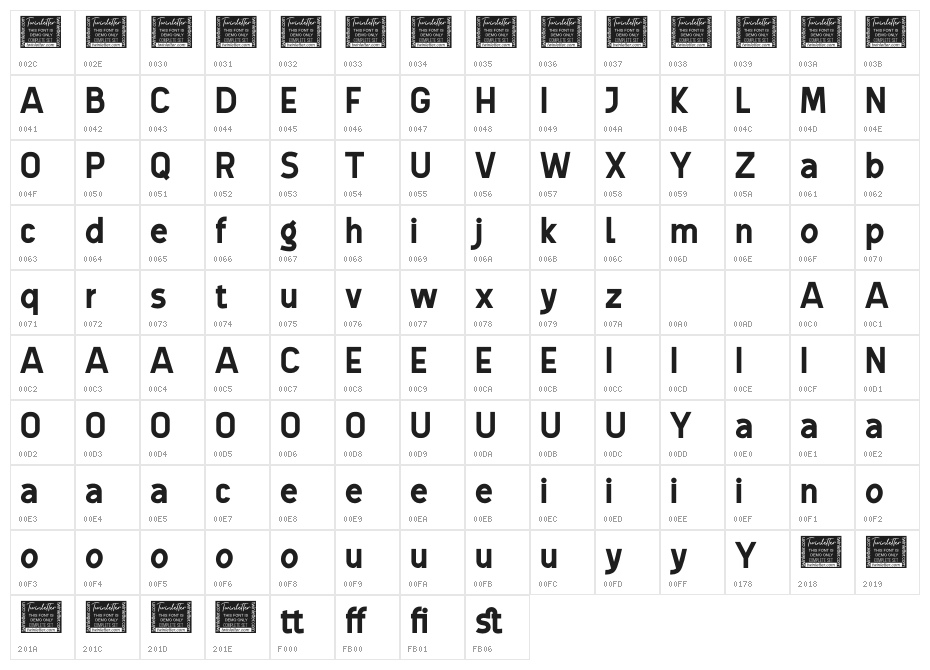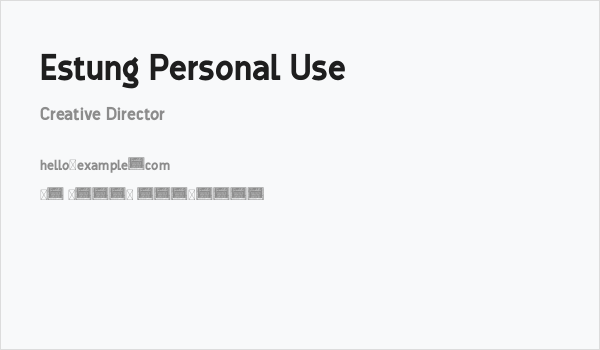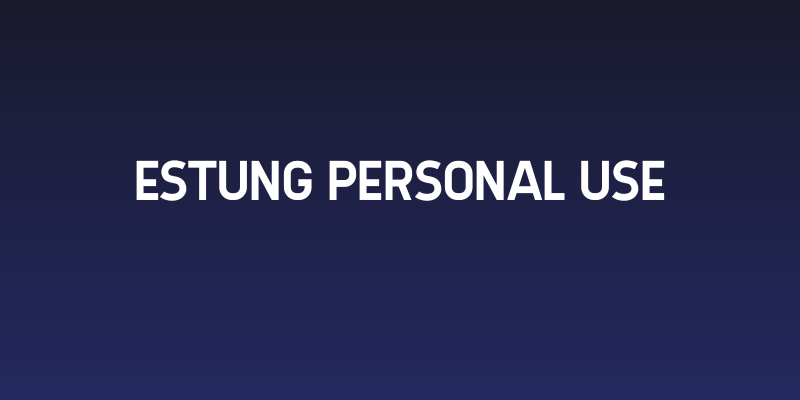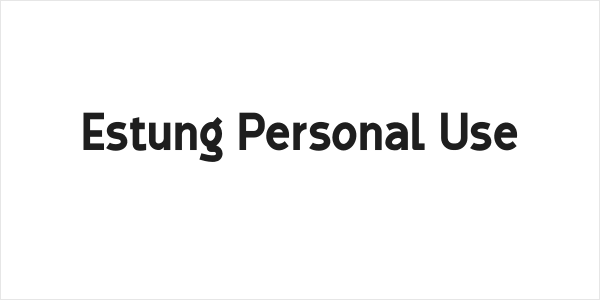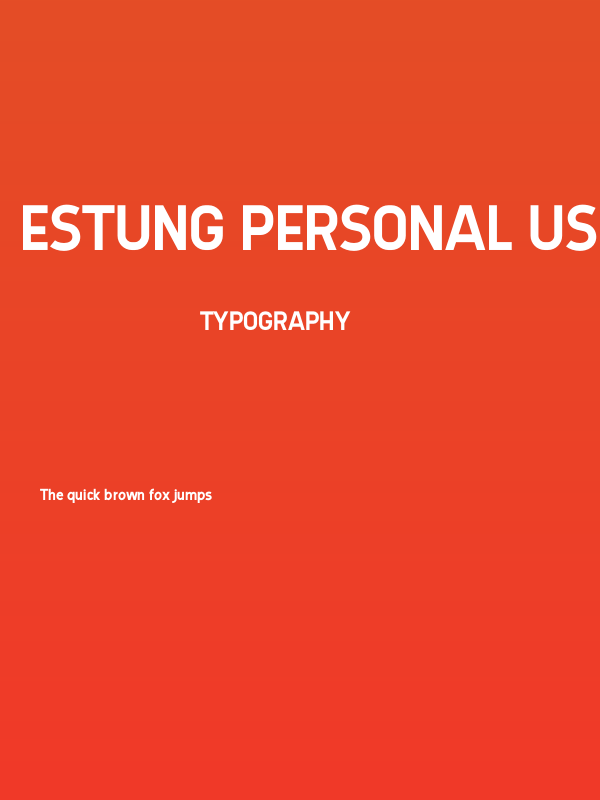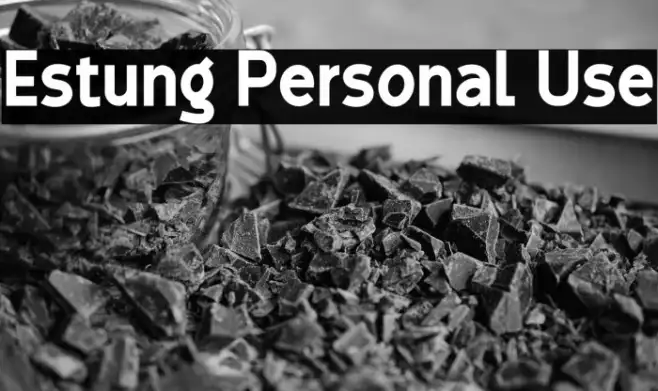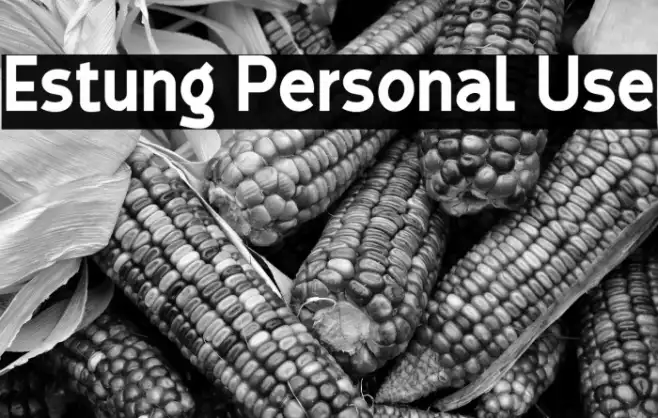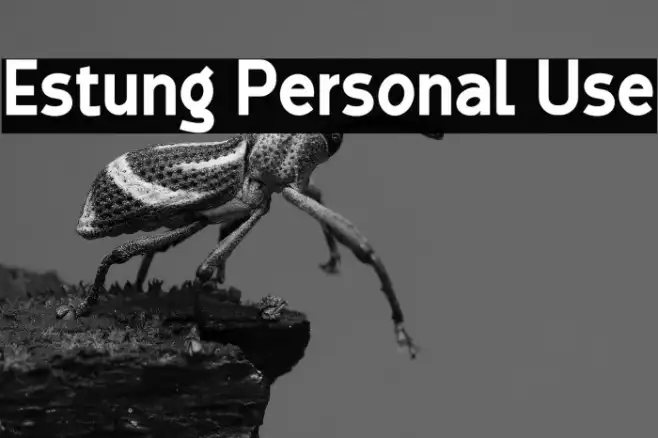
Estung Personal Use Font
Estung Personal Use Description
This font features a bold and modern sans-serif style with clean lines and a strong presence. The uppercase and lowercase letters are well-balanced, offering a uniform appearance that is both professional and approachable. The characters are slightly condensed, providing a compact look without sacrificing readability. The numbers and special characters maintain the same boldness and clarity, ensuring consistency across all text elements. This font is ideal for making a statement in any design, whether it be for branding, advertising, or digital media.
| Proposed Projects | Ideal for branding, advertising, digital media, and headlines. |